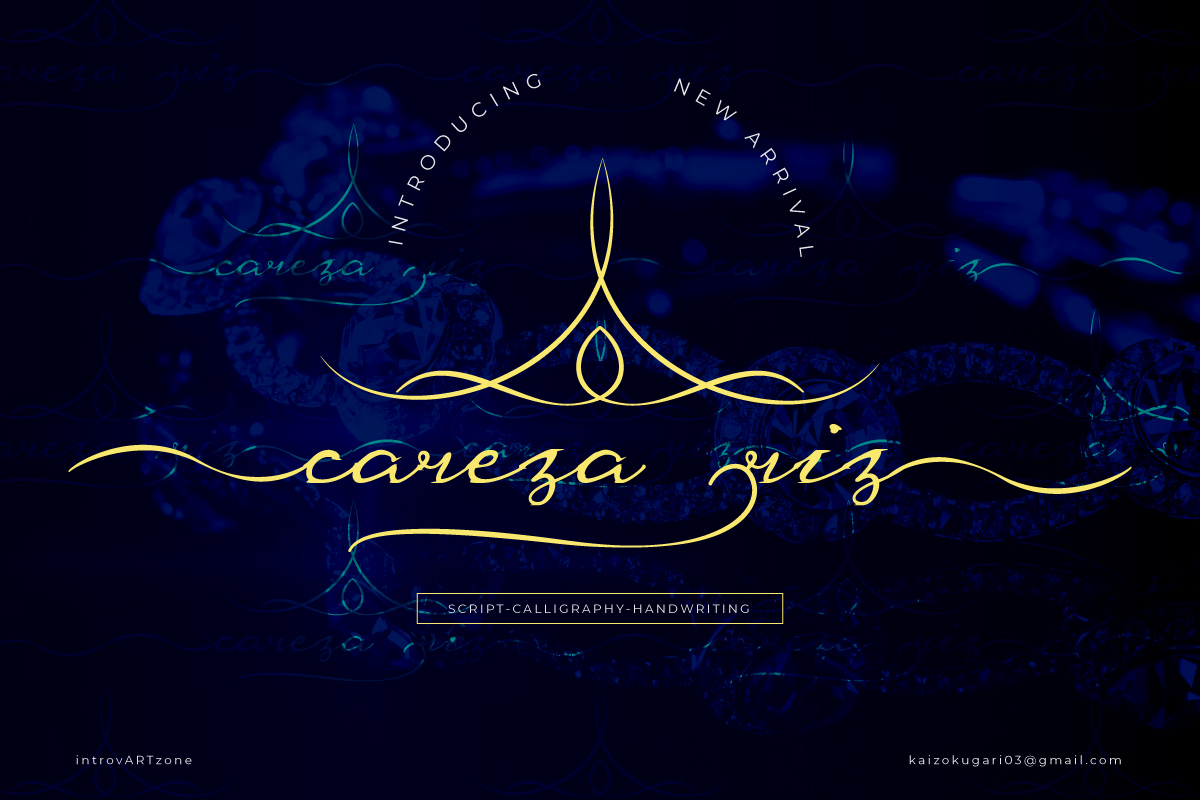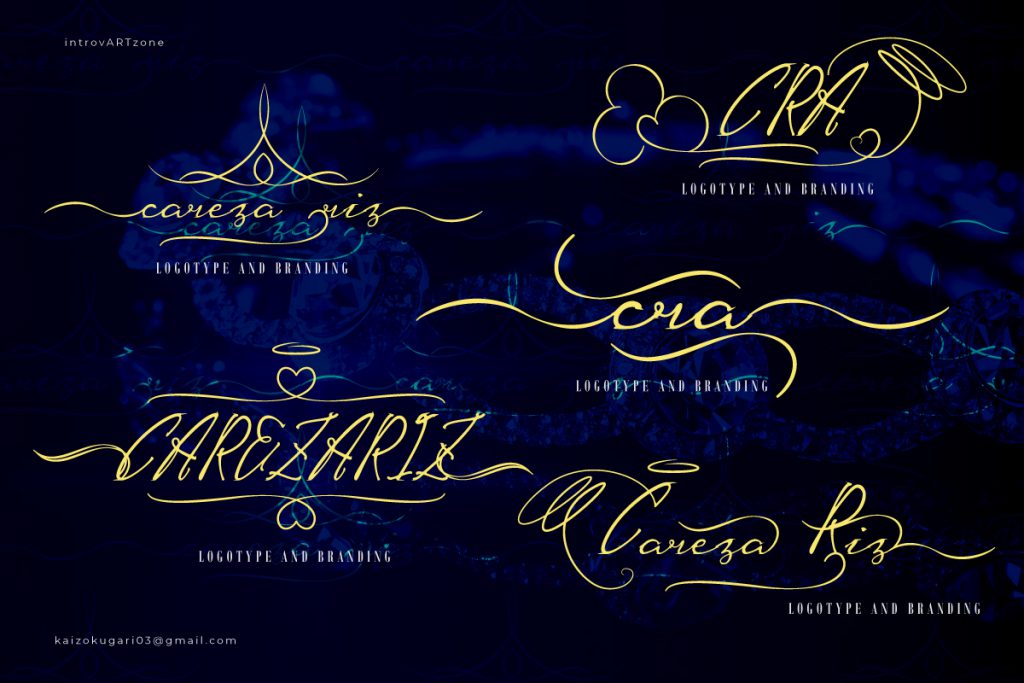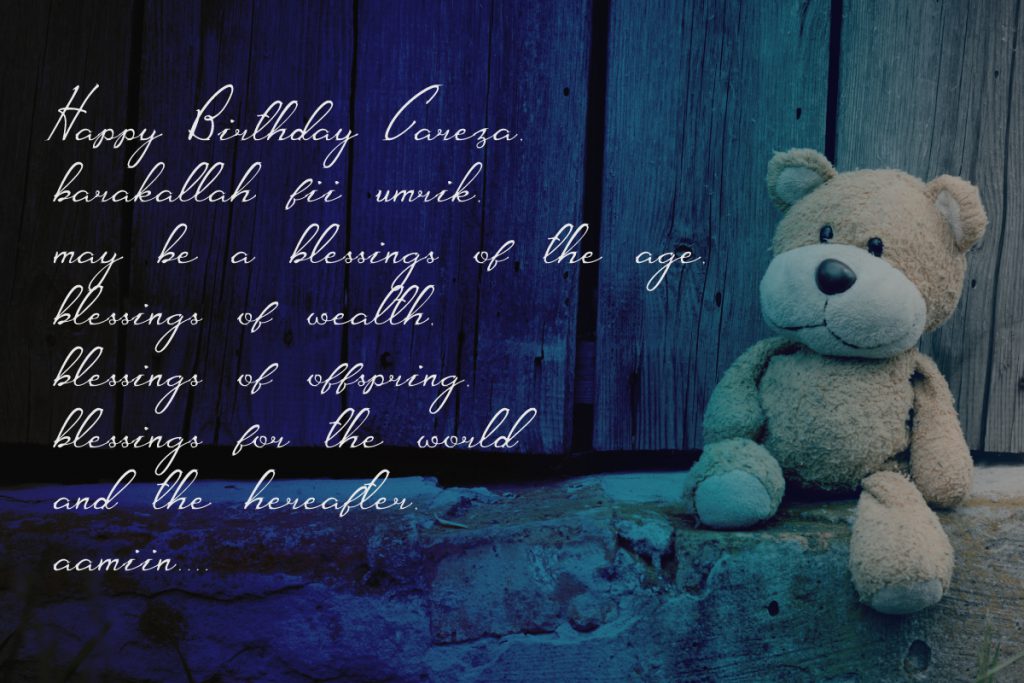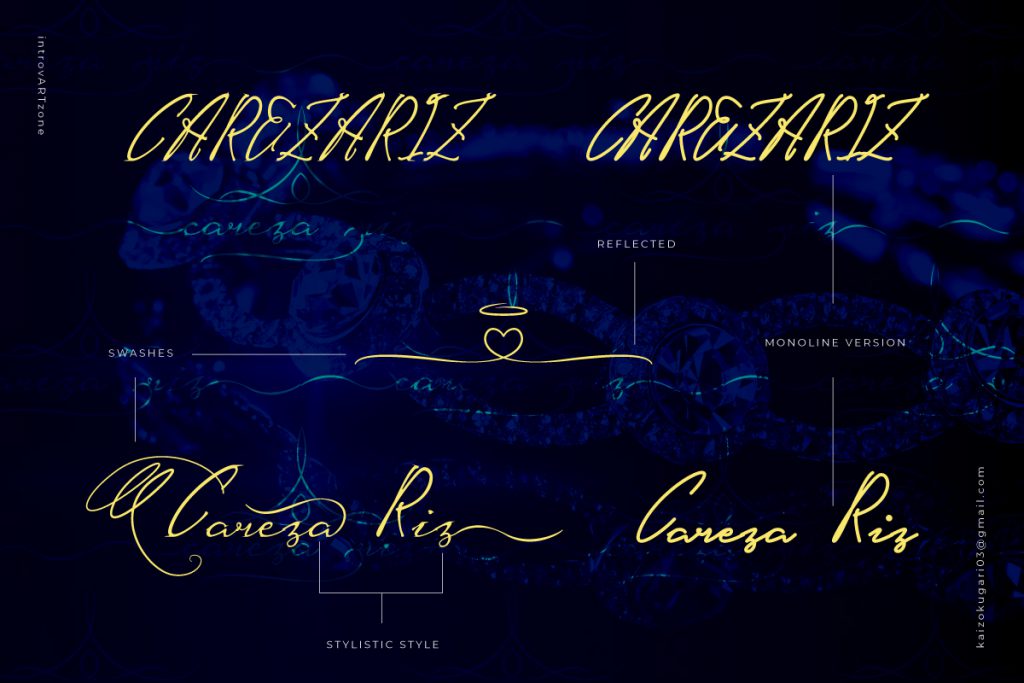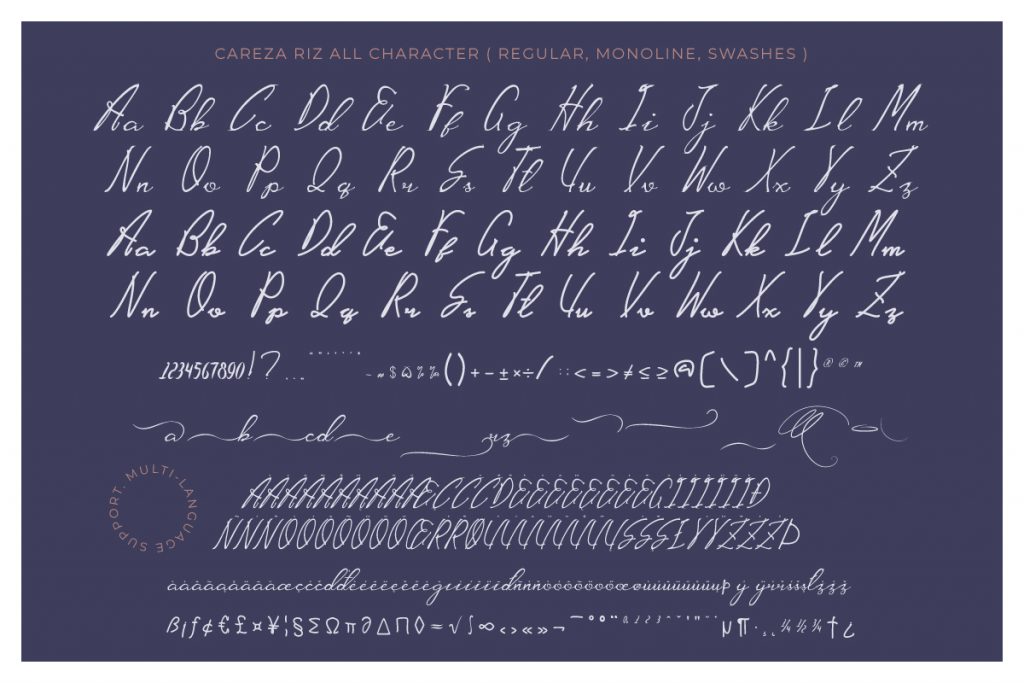
Careza Riz: Free Script Font
This Free Careza Riz Script Font font is an elegant script font that is suitable for your projects such as invitation, gift card, business card and more. This font is available for two format file OTF and TTF, you can install and use it on your devices. However, this free font is coming with a personal license use, but, if you want to get more features, make sure you purchase it.